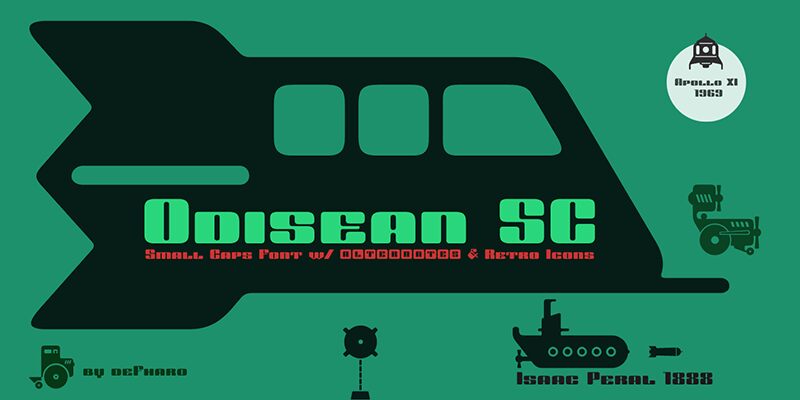
Odisean SC stands at the crossroads of elegance and nostalgia, a bold display font from the creative mind of Fernando Haro. With its extra-expanded width and impactful presence, this member of the Odisean family brings a retro flair to any project it graces. Crafted for large size usage, it effortlessly commands attention while its small caps inject a refined touch into your work.
The font's unique suite of alternative lettering options and retro transportation icons unlocks a treasure trove of design possibilities. Whether you're crafting logos, posters, or eye-catching headlines, Odisean SC adapts with ease, making it an ideal choice for designers aiming to blend vintage charm with contemporary aesthetics.
Embrace the power of this small caps gem to elevate your creative vision to new heights.
Odisean Small Caps is a typographic experiment and rounded where all the proportions and measures of the characters and metrics are multiples of the number eight. The result is a very steep typography of square proportion with a great contrast between the horizontal / vertical horns.